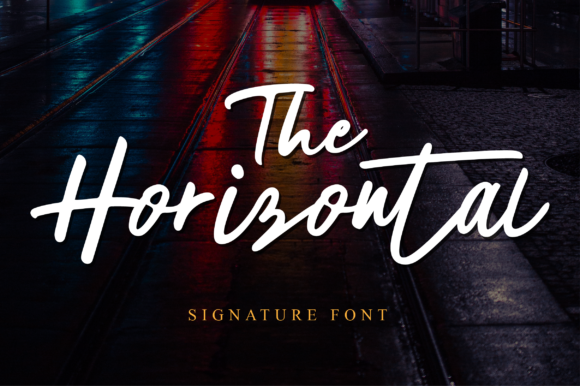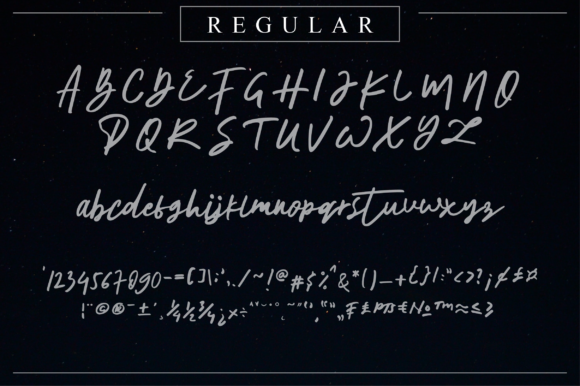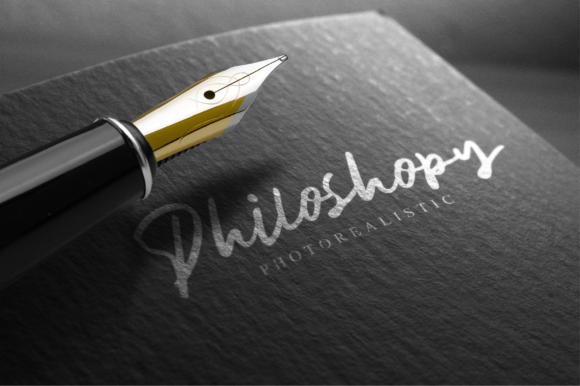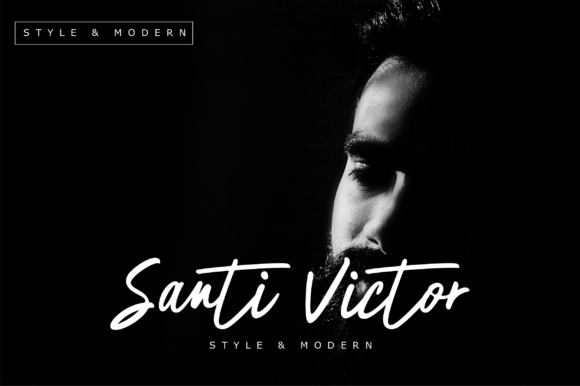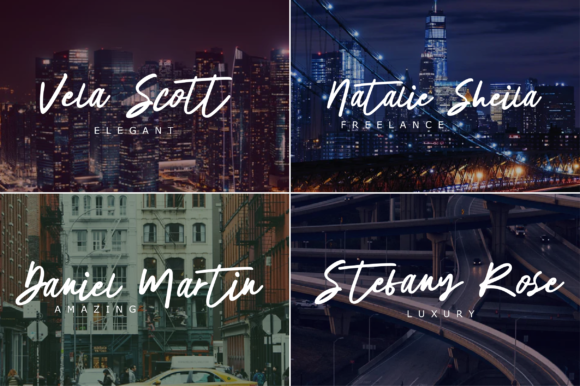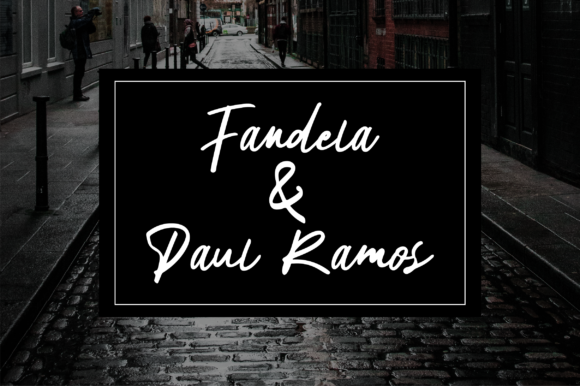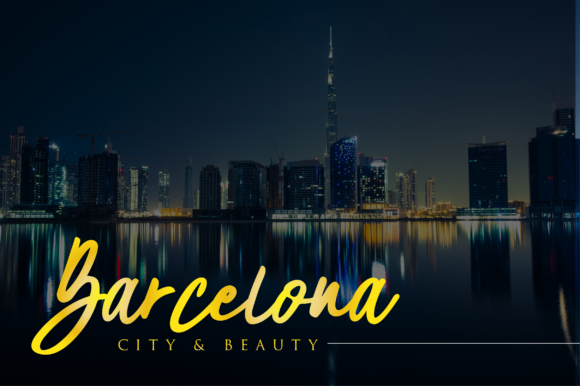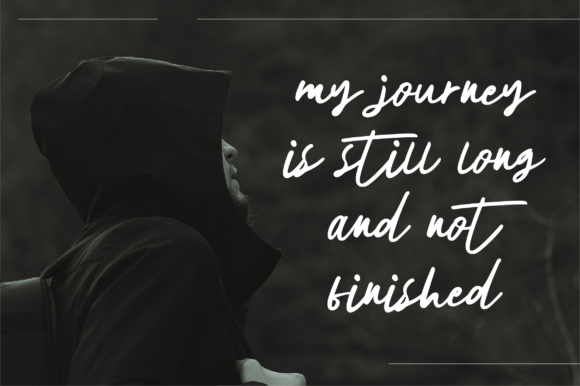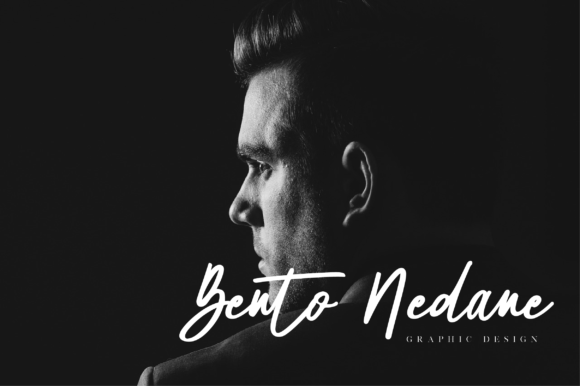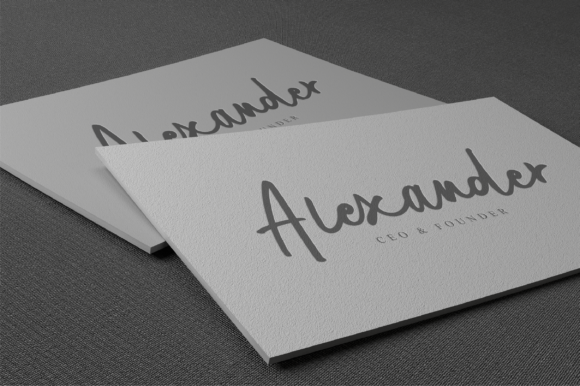
The Horizontal Font
About The Horizontal Font
The Horizontal is a gorgeous and fun script font that will turn any design project into a true standout. It will turn any design idea into a true standout!